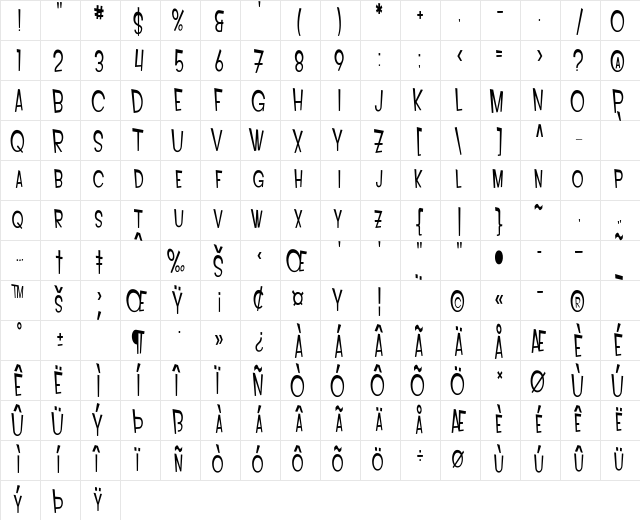
SF Intoxicated Blues Regular
| Designer | ShyFonts Type Foundry |
Design Context for SF Intoxicated Blues Typeface
SF Intoxicated Blues offers clean, dependable letterforms without strong stylistic allegiance, making it a practical choice for designers who need flexibility.